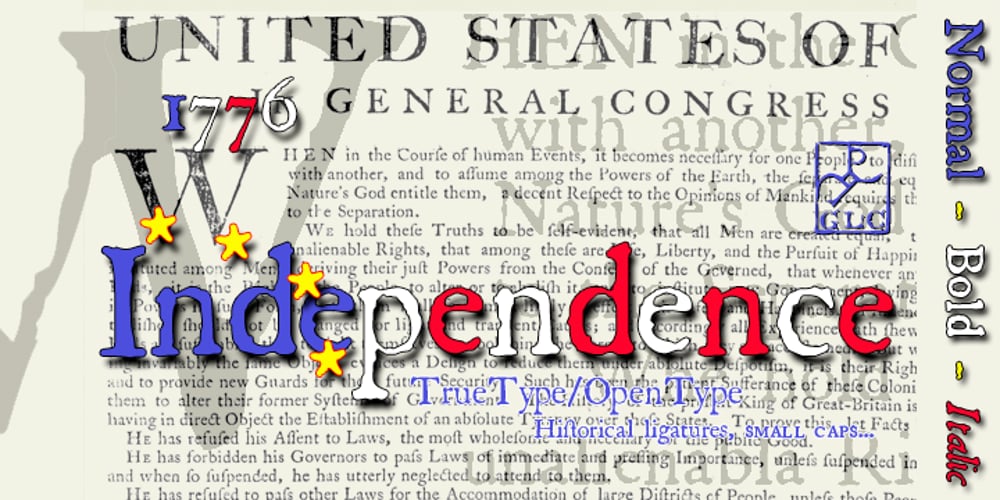
1776 Independence Font Family was designed by published by GLC. 1776 Independence contains 3 styles and family package options. 1776 Independence was designed inspired mainly from the Caslon typeface used by John Dunlap in the night of 1776 July 4th in Philadelphia to print the first 200 sheets of the Congress’ Declaration of Independence establishing the United States of America. I just added accented letters and a few others, with respect for the original design. A render sheet,enclosed with font file, help to identify them on keyboard. It can be used as web-site titles, posters and fliers, editing ancient texts, menus or greeting cards as a very decorative font… This font supports as easily enlargement or small size, remaining clear and easy to read from 8 or 9 points to 72 and over. It gives a smart look especially to prints.